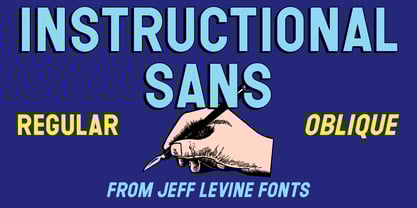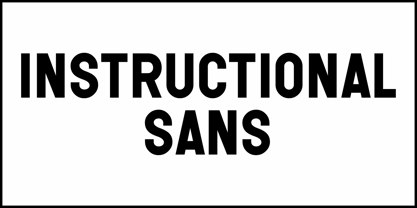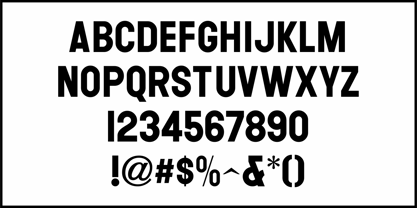
Instructional Sans JNL
by Jeff Levine
The Instructional Sans JNL Font Family was designed by Jeff Levine and published by Jeff Levine. Instructional Sans JNL contains 2 styles and family package options.
A basic sans serif alphabet prepared by William Dressler for lettering instruction was reprinted in the 1952 book "Lettering Art in Modern Use" by Raymond A. Ballinger.
This served as the design model for Instructional Sans JNL, which is available in both regular and oblique versions.